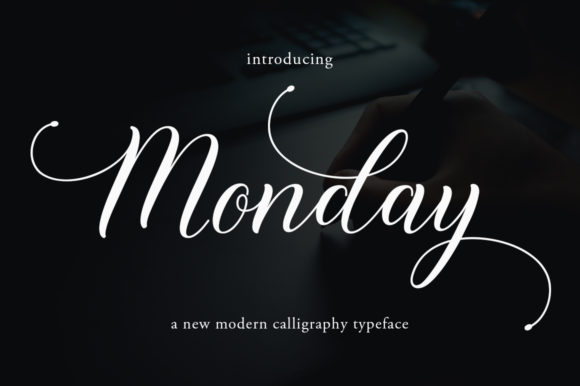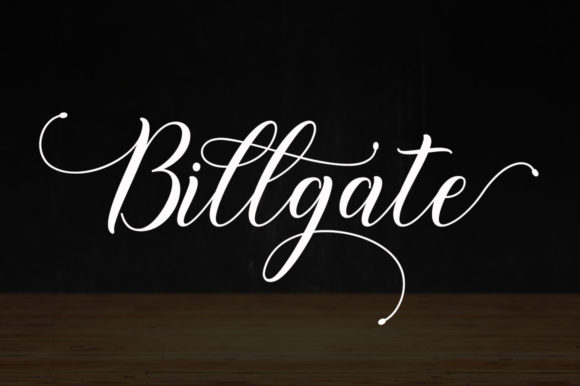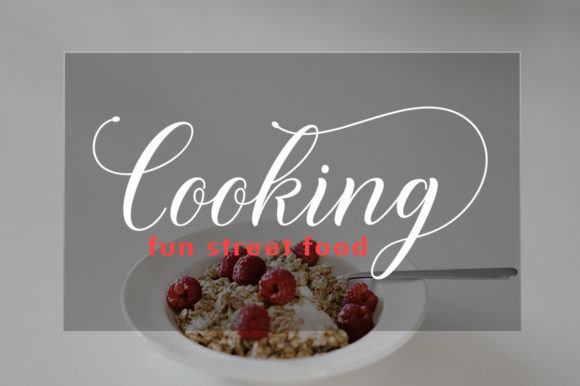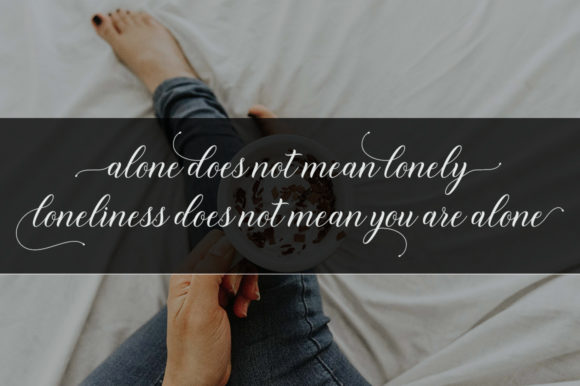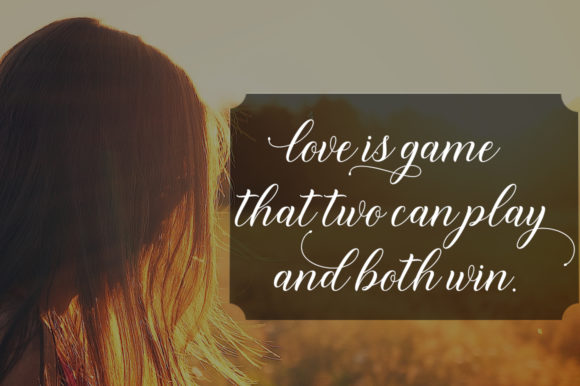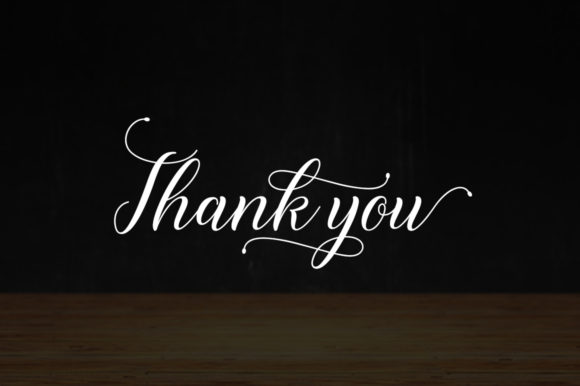
HomeScript FontsMonday Font Script Fonts Monday Font FacebookXPinterestWhatsApp Monday Font Poster 2 Monday Font Poster 3 Monday Font Poster 4 Monday Font Poster 5 Monday Font Poster 6 About Monday Font Monday is a charming handwritten script font with friendly style. Fall in love with its classy appeal! DOWNLOAD NOW People also explored Good Love Font Cremona Font Felix Font Slabtro Font Southernia Script Font Winter Font Beloved Christmas Font Seychelle Font Comely Font 344 0 TagsMonday Font Previous articleCarmeliya FontNext articleWellcome Font LEAVE A REPLY Cancel reply Comment: Please enter your comment! Name:* Please enter your name here Email:* You have entered an incorrect email address! Please enter your email address here Website: Save my name, email, and website in this browser for the next time I comment. Personal Use Free Happy Rabbit Personal Use Free Read more about this font Stone Cold Personal Use Free Read more about this font Kaylafiz Personal Use Free Read more about this font Tide Personal Use Free Read more about this font BLOG Exploring Font Trends Shaping Communication in the Digital Era Fonts, like all design elements, are subject to trends. They play a crucial role in communicating a brand's personality,... The 10 Best Handwriting Fonts to Add Personality to Your Designs Where to Buy American Fonts Online in 2024 Modern Sans-Serif Fonts That Brands Love in 2025